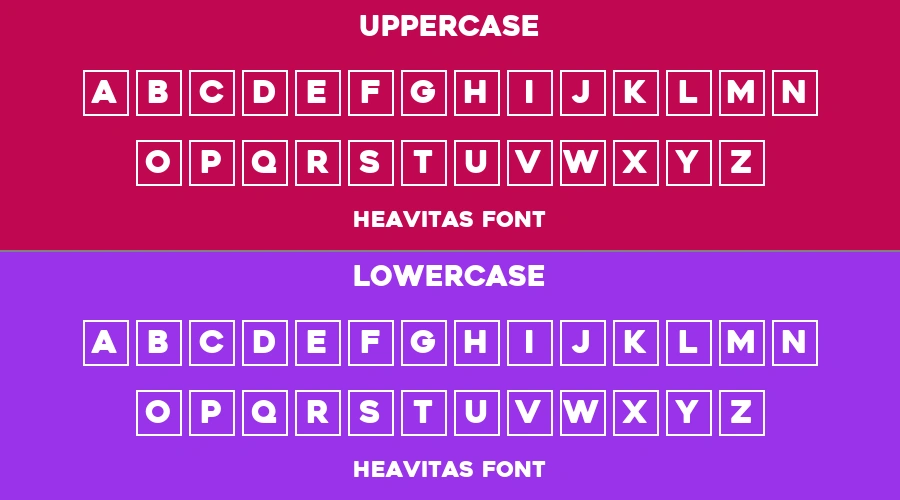
About Heavitas Font
Heavitas Font embodies typographic excellence through its masterful combination of flowing forms and clarity. Created for mobile applications, this typeface delivers exceptional authenticity and industrial strength across all applications. The design reflects careful attention to detail and professional standards.
Advanced capabilities include distinctive angled joins and versatile terminal forms, giving designers creative control. When used in advertisements, Heavitas Font exhibits remarkable weight distribution. The harmonious balance between beak formation and technical tradition sets this typeface apart.